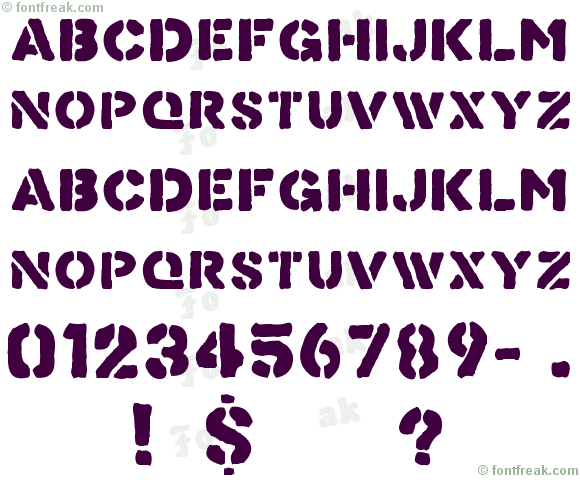
About Know Your Product
The "Know Your Product" font by Vic Fieger is an eye-catching display typeface that stands out with its bold and playful design. This decorative font, released in 2004, features a unique combination of thick and thin strokes, providing a dynamic contrast that captures attention. The letters exhibit a quirky, slightly irregular shape, lending a sense of informality and fun. The spacing between the characters is generous, which enhances readability and allows for a laid-back aesthetic, making it ideal for various creative applications.
This font is particularly well-suited for use in areas that require a lively and engaging appearance. It shines in contexts such as movie posters, where its boldness can draw viewers in. Additionally, it works wonderfully for product packaging, providing an appealing look that can attract consumer interest. Restaurant menus can also benefit from its unique character; it can evoke a casual, friendly atmosphere that invites patrons to explore the offerings. Moreover, promotional materials for events or festivals can leverage the font's playful nature to convey excitement and energy.
What sets the "Know Your Product" font apart is its ability to infuse personality into any design. Its whimsical style not only conveys a sense of creativity but also resonates with audiences, making it a fantastic choice for anyone looking to make a statement. Explore the "Know Your Product font free download" today and elevate your design projects with a touch of unique character.